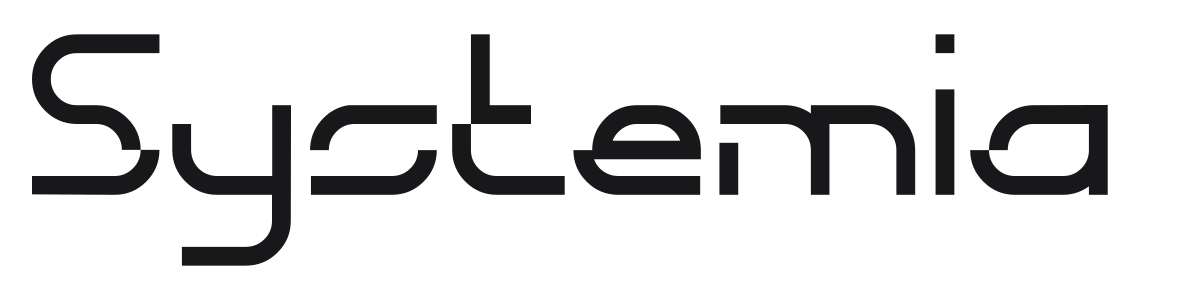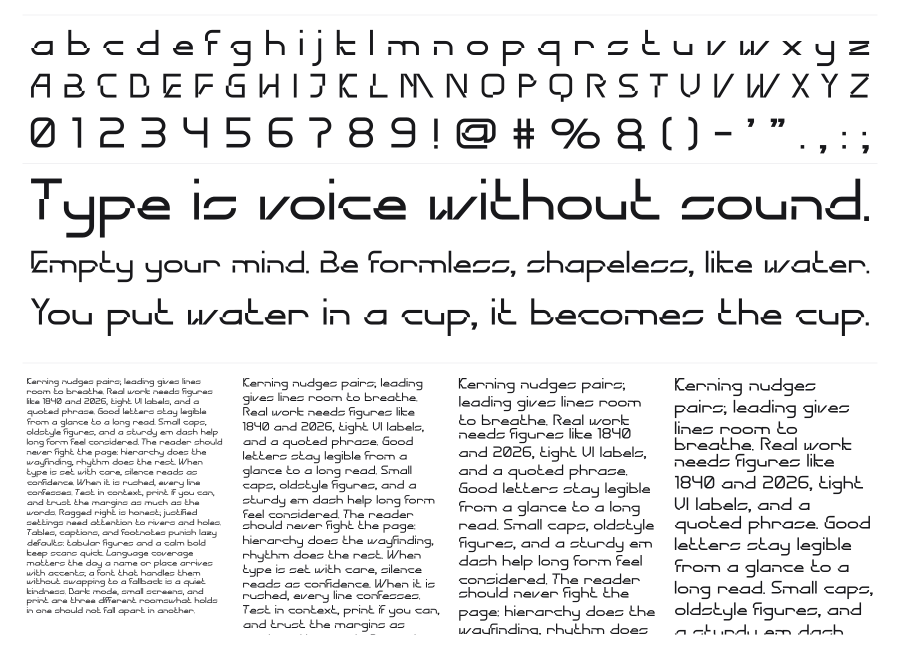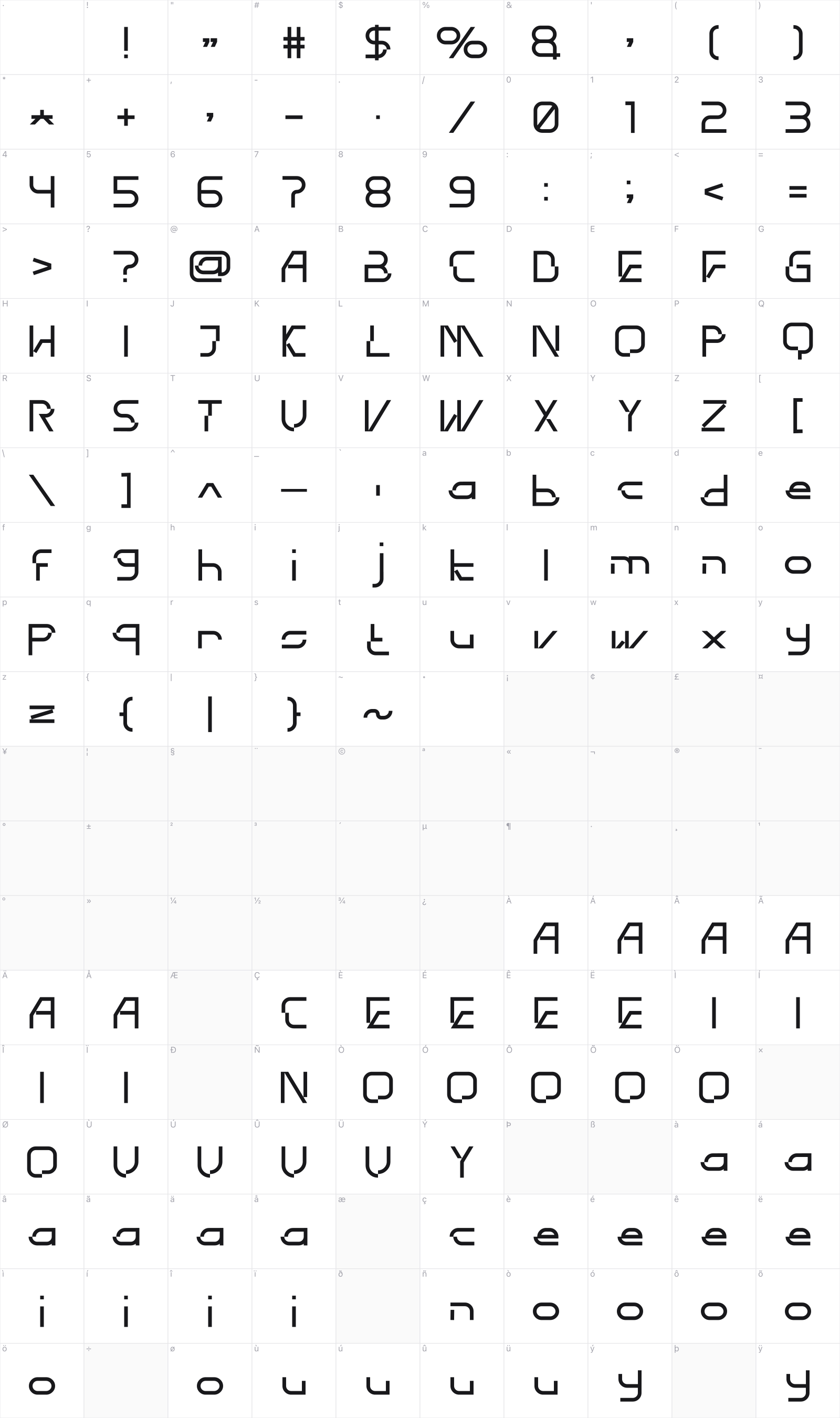
Systemia
Systemia is a geometric techno sans built around modular, segmented strokes with deliberate cuts at character joints that evoke circuit boards and digital interfaces. The near-monoweight construction and wide proportions keep it clean and legible at headline sizes. It sits comfortably in the space between futuristic sci-fi and contemporary tech branding.